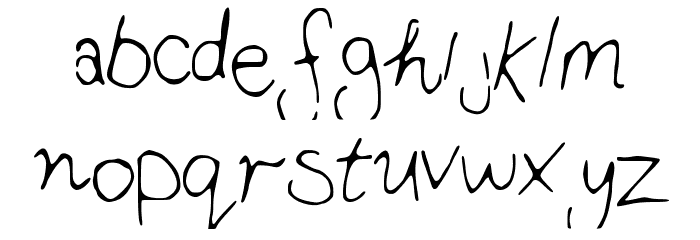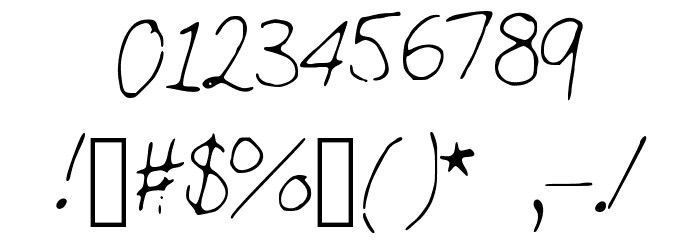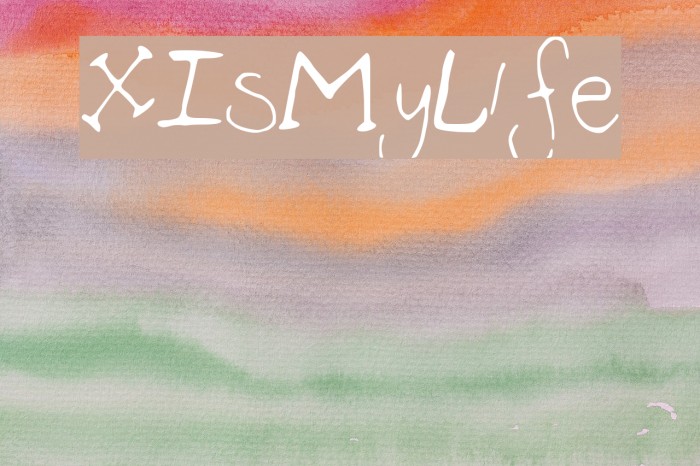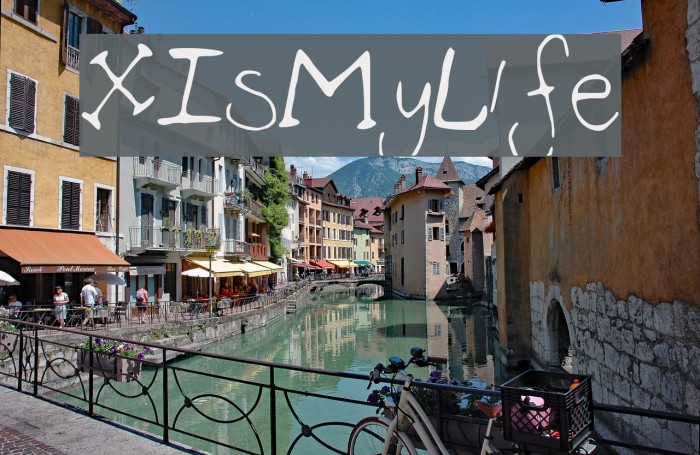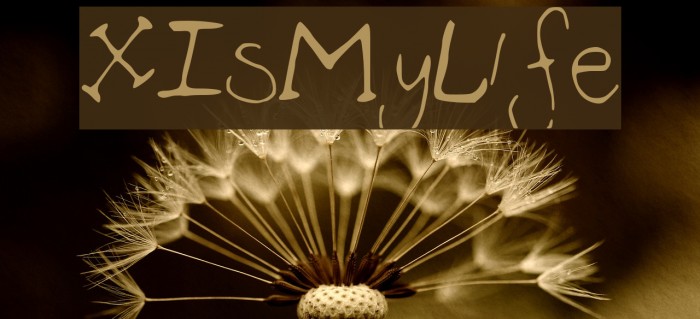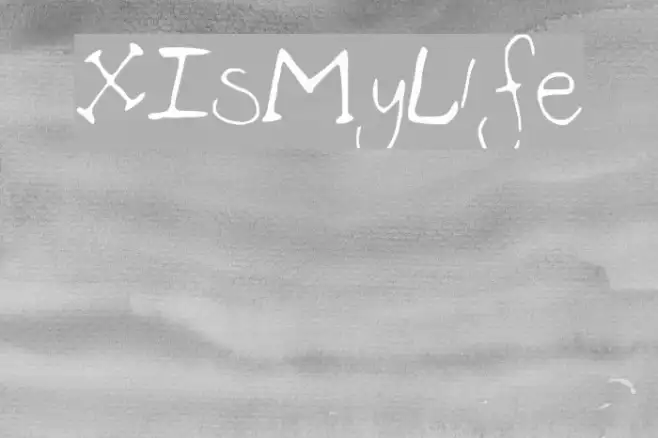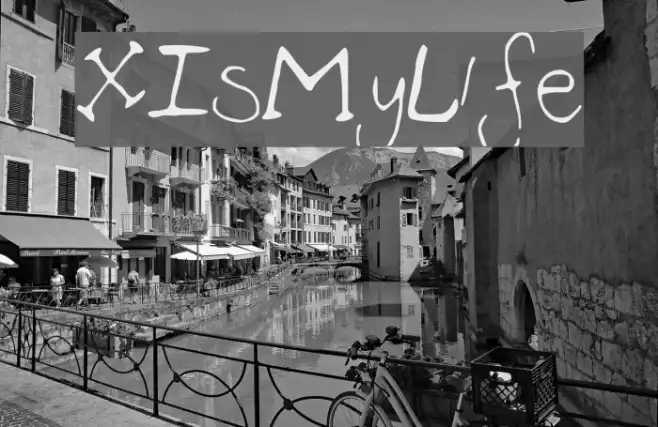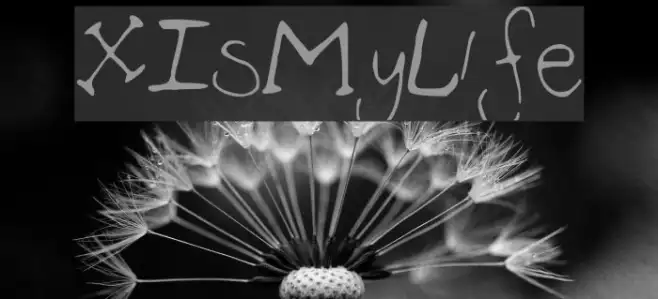
X_Is_My_Life Font
This font exudes a playful and casual handwritten style, characterized by its irregular strokes and varying line thickness. The uppercase letters are bold and slightly exaggerated, giving a sense of spontaneity and energy. The lowercase letters maintain a consistent flow, with some characters featuring unique loops and curves that add to the font's charm. Numbers are clear and legible, while special characters retain the same whimsical quality. This font's overall appearance is informal yet artistic, making it suitable for creative projects.
A playful, casual handwritten font with irregular strokes and a whimsical style.
- Proposed Projects: Ideal for greeting cards, children's books, creative posters, and informal branding.
- Overall Style: Casual, Artistic
- Use Case: Headlines, Creative projects, Informal branding